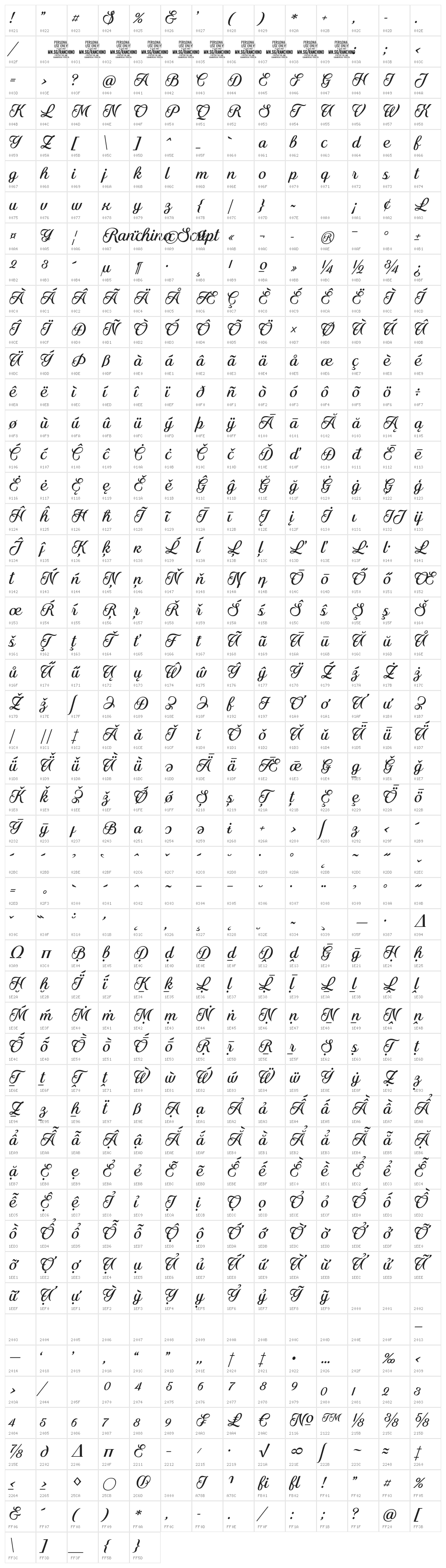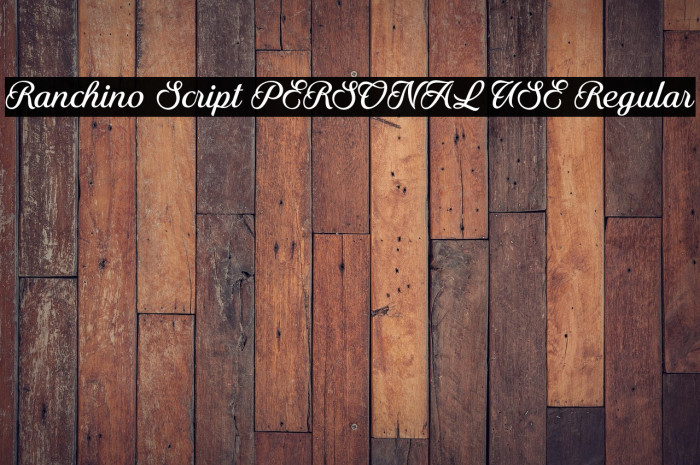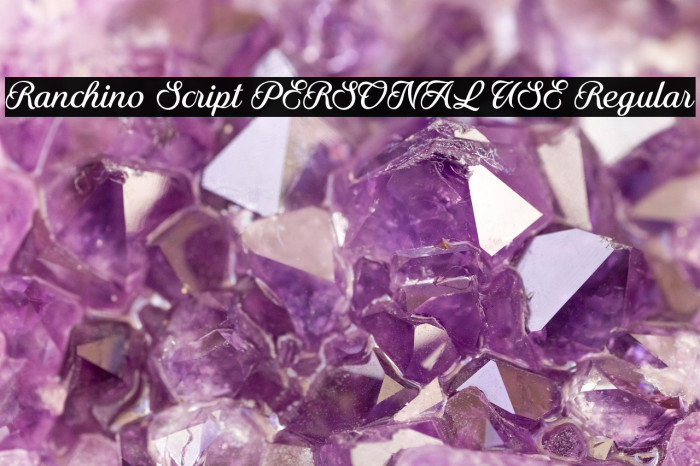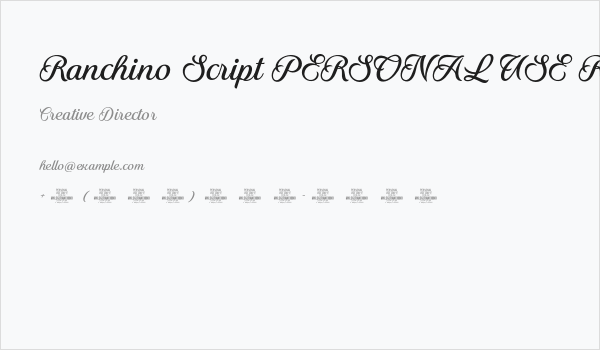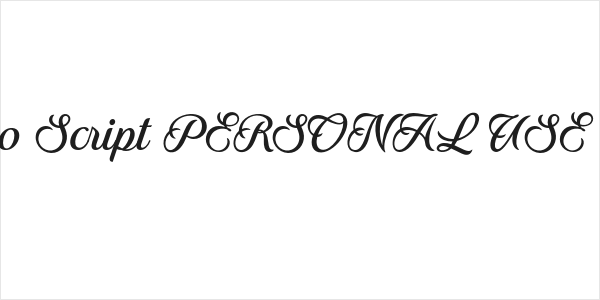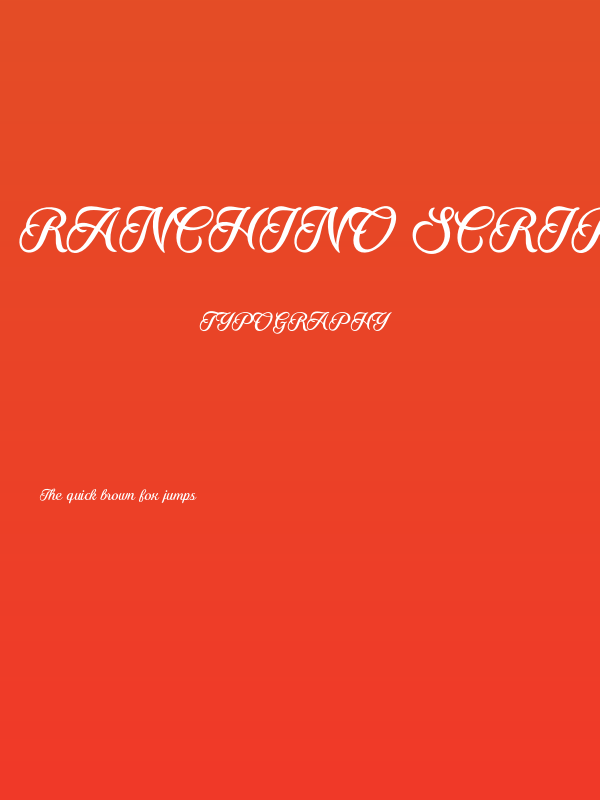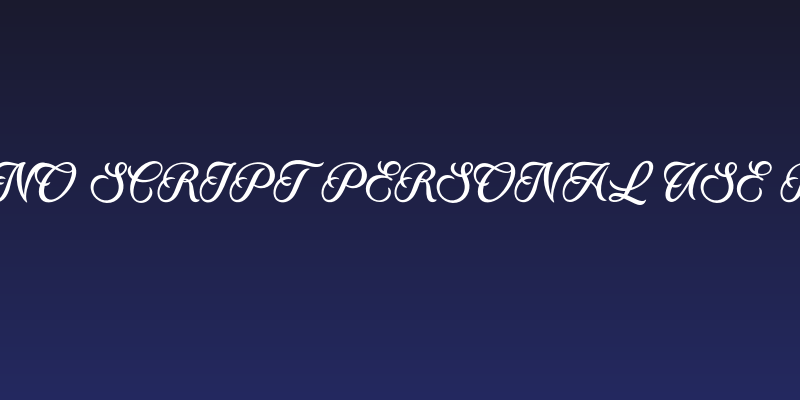
Ranchino Script PERSONAL USE Regular Font
Ranchino Script PERSONAL USE Regular Description
This elegant script font features flowing, cursive letterforms with a classic and sophisticated style. The uppercase letters are ornate with intricate loops and swashes, while the lowercase letters maintain a smooth and connected appearance. The font exhibits a consistent stroke width, giving it a harmonious and balanced look. It includes a full set of uppercase and lowercase letters, numerals, and a variety of special characters, making it versatile for various design needs. The overall aesthetic is reminiscent of traditional calligraphy, yet it maintains a modern appeal.